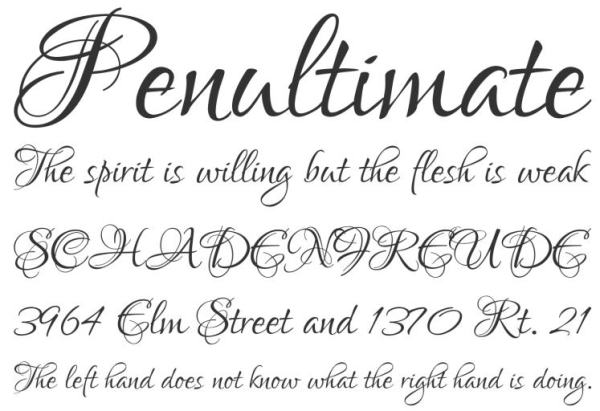
And oh, because it’s a dismal day but I’m feeling happy and I want to make you happy too, here’s a link to a free commercial use font, Lover’s Quarrel. Fancy script, nice to pair with another font. Check out the example below. Have fun!
lovers quarrel